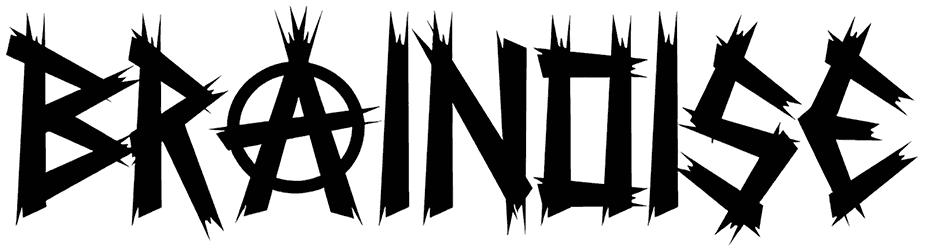
Brainoise Font
You can easily create an eye-catching visual for your next urban design with this punk font and make it mesmerizing. The characters of this display font have a cool and distinct form that can bold your creative idea. Even though numbers are not available, the Brainoise font is going to give a unique vibe to your layouts and take them to a higher level.